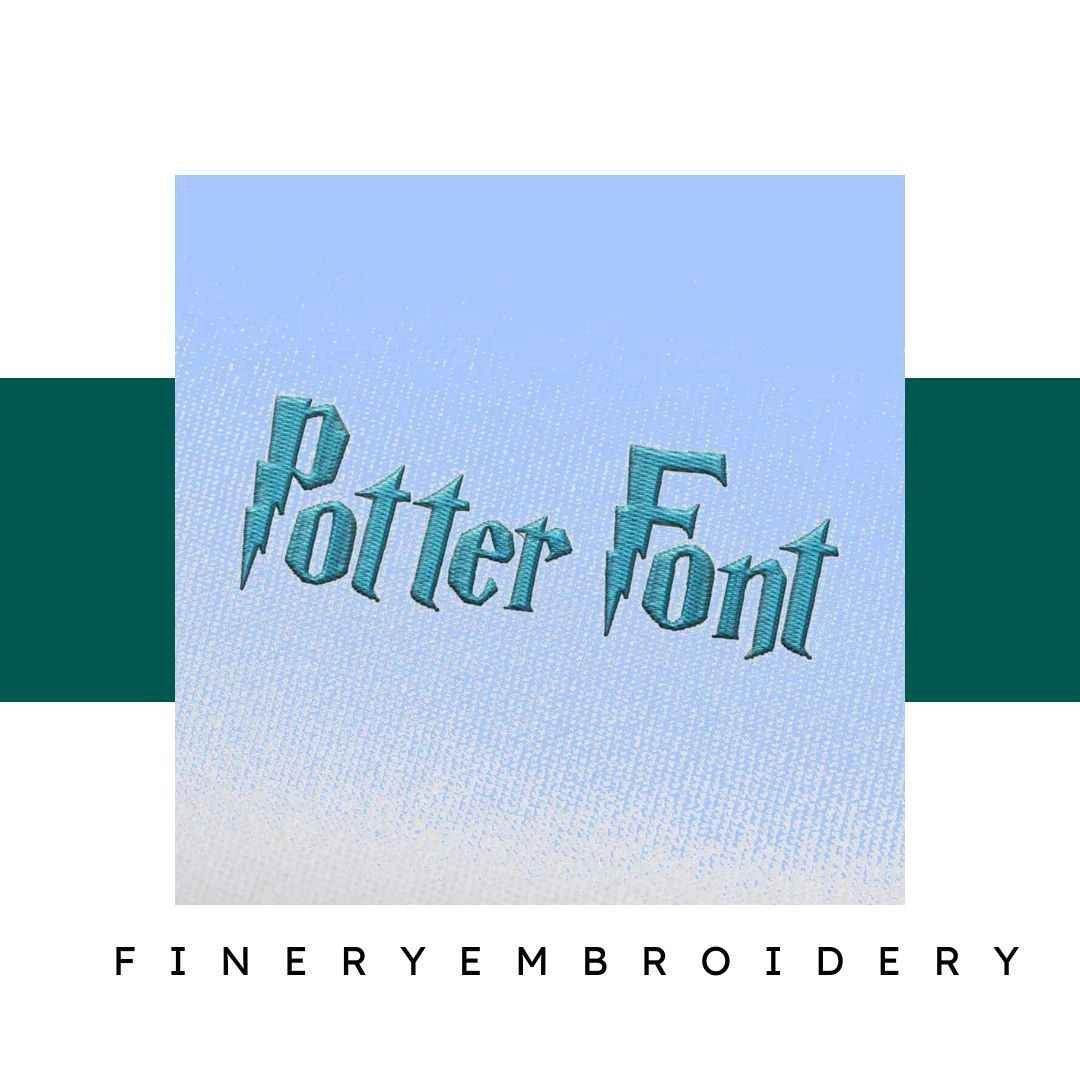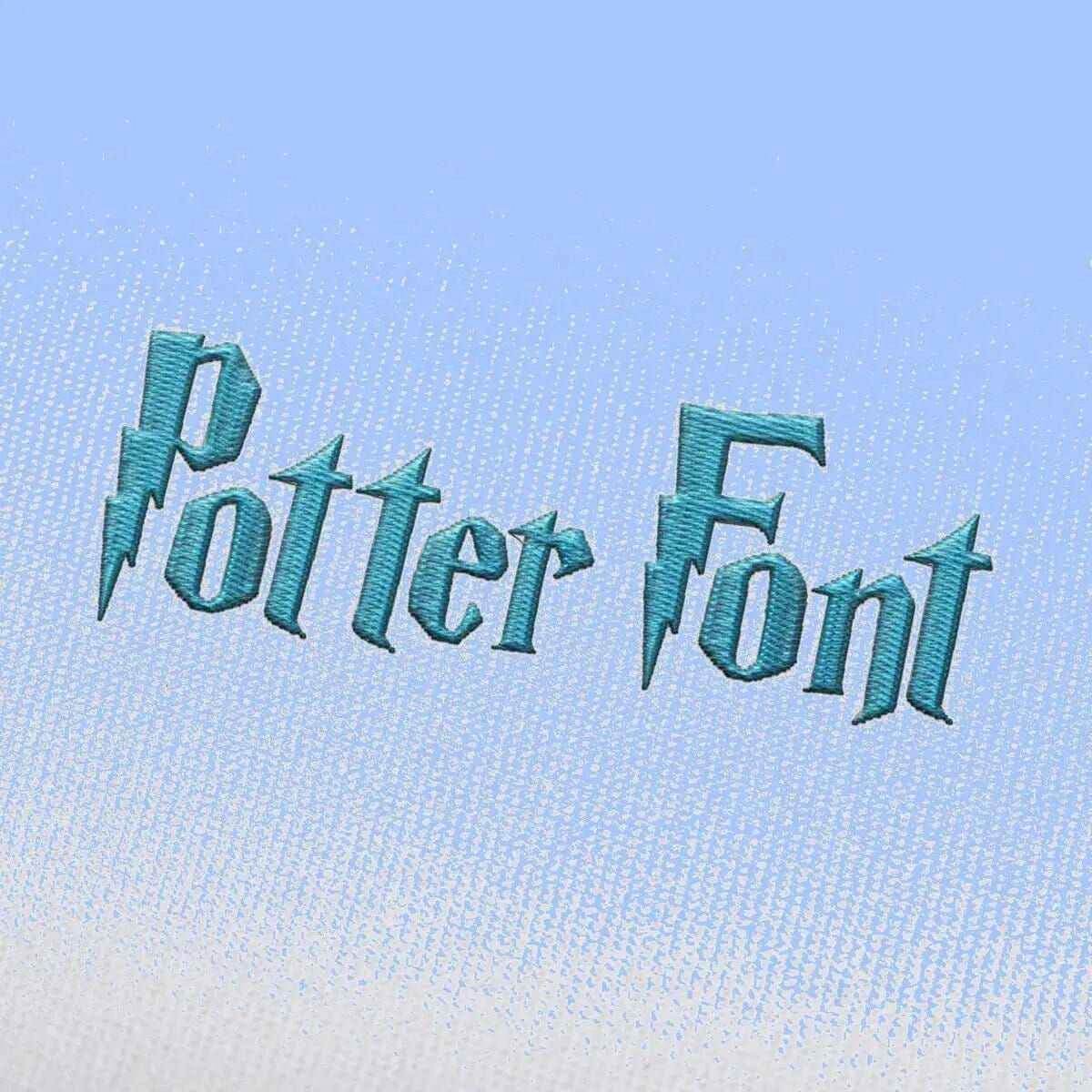
Potter Embroidery alphabet Font Set
Transform your embroidery with the enchanting Potter Embroidery Alphabet Font Set – the perfect blend of elegance and creativity awaits!
Introducing the Potter Embroidery Alphabet Font Set, your gateway to crafting beautiful and personalized embroidery projects. This elegant font set is designed for crafters who appreciate high-quality and intricate designs that add a touch of sophistication to their creations. Whether you are embellishing gifts or enhancing home decor items, this set is an essential addition to your collection.
Why You'll Love This Design
The Potter Embroidery Alphabet Font Set stands out due to its exquisite detail and versatility. Each letter has been meticulously crafted to provide a luxurious finish, making it ideal for both personal and professional projects. This font set allows you to explore various creative avenues, ensuring that your embroidery pieces are not only functional but also stunningly beautiful.
Creative Applications
Unleash your creativity with the endless possibilities this font set offers! From personalized gifts for special occasions to eye-catching home decor accents, the Potter Embroidery Alphabet Font Set is perfect for monograms, quotes, or anywhere you want to add a sophisticated touch. Your imagination is the only limit when it comes to using these designs in your embroidery projects.
Digitized for Passionate Embroiderers
At Finery Embroidery, we understand the passion that goes into every embroidery project. We designed the Potter Font Set with you in mind, ensuring that each file is compatible with a wide range of embroidery machines. Our team has carefully digitized this font set to ensure smooth performance and stunning results, allowing you to focus on what you love most – creating beautiful embroidery.